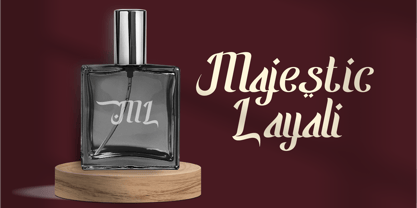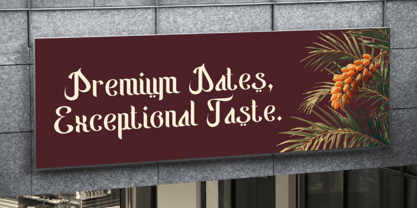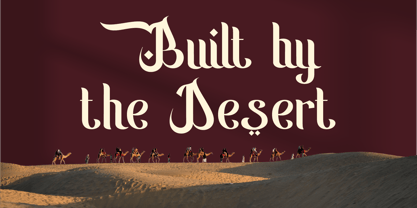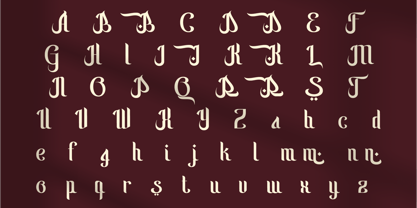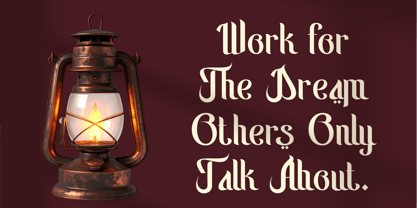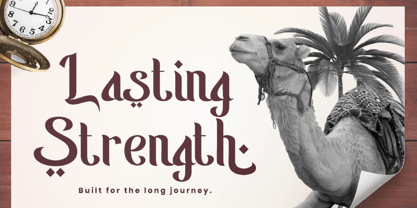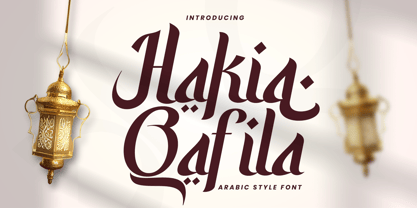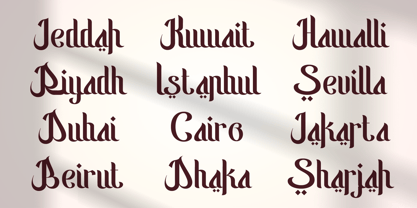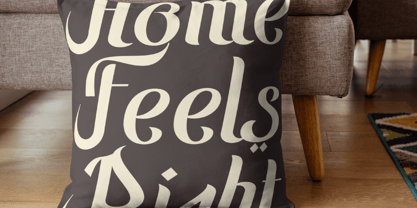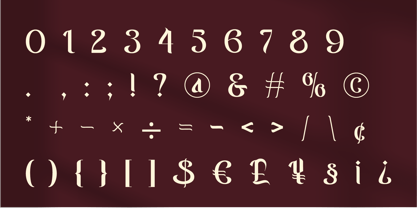
Hakia Qafila
The Hakia Qafila Font Family was designed by Randi Irvan and published by Rvandtype. Hakia Qafila contains 2 styles and family package options. More about this family
Hakia Qafila is a serif display typeface inspired by the spirit of a qafila—a caravan journeying across cities, cultures, and centuries. Drawing from the visual rhythm of Arabic calligraphy and the structure of classic serif typography, it blends flowing curves with confident, timeless forms. The design reflects the atmosphere of Middle Eastern streets, historic trade routes, and handwritten traditions once carved in stone or written in ink. This balance between heritage and refinement gives Hakia Qafila a distinctive voice—expressive yet authoritative. The family includes Regular and Italic styles. The Regular style delivers clarity and strength for headlines and branding, while the Italic introduces movement and narrative flow, ideal for quotes, highlights, and expressive typographic accents. Hakia Qafila features stylistic alternates, carefully designed diacritics, and refined detailing, allowing designers to build culturally rich and visually engaging compositions. With support for multilingual Latin-based languages, the typeface is suitable for international use while maintaining its Middle Eastern character. Hakia Qafila is designed for projects that seek elegance, identity, and cultural depth—bridging tradition and contemporary design through letterforms.